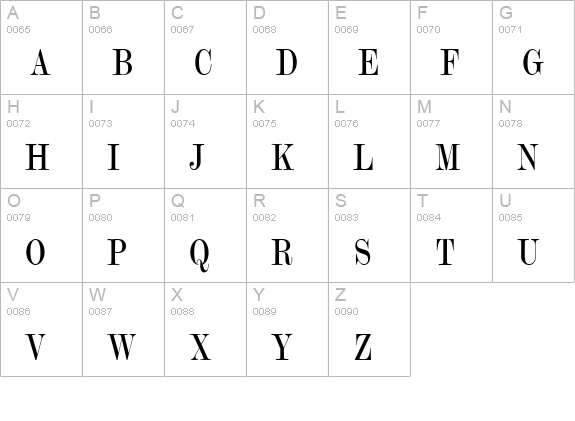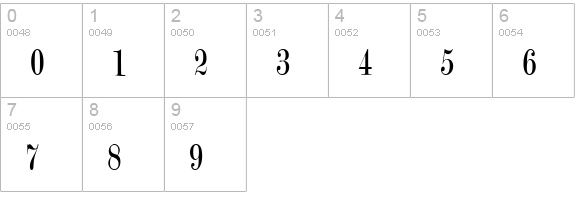
Update 20 Condensed Normal Font Details
Update 20 Condensed Normal is the standard, neutral, condensed-width variant in the Update typeface family \xE2\x80\x94 well suited to general body text, paragraphs, and standard typographic work.
Update 20 Condensed Normal font is a sleek and modern typeface that is perfect for adding a touch of sophistication to any design project. This condensed font is carefully crafted to provide a clean and minimalistic aesthetic, making it ideal for headlines, logos, and branding materials. Featuring a condensed design, Update 20 Condensed Normal font allows you to fit more text into tight spaces without compromising on readability. Its strong and sharp lines give it a professional and polished look, making it a versatile choice for both digital and print media. With its smooth and balanced letterforms, Update 20 Condensed Normal font exudes elegance and professionalism. Its versatility allows it to be used in a variety of design applications, such as websites, advertisements, packaging, and more. Whether you're creating a sleek corporate identity or designing a contemporary website, this font will help you achieve a modern and refined look. One of the best things about Update 20 Condensed Normal font is that it is available for free. You can easily download this font from FontsMarket.com, a trusted source for high-quality fonts. This means that you can enhance your design projects without breaking the bank. Don't miss out on the opportunity to add a touch of sophistication to your designs with Update 20 Condensed Normal font, freely available for download at FontsMarket.com.